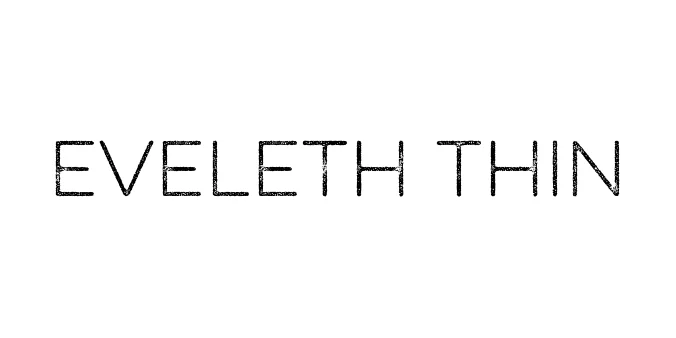
Eveleth Thin
Designed by Ryan Martinson (Yellow Design Studio)
| Category | Display / Letterpress Sans Serif |
Eveleth Thin is a refined component of the high-resolution letterpress family designed by Yellow Design Studio. This typeface is celebrated for its incredible level of detail and authentic texture, which avoids the repetitive patterns often found in digital distressed fonts. The Thin weight provides a subtle, sophisticated take on the rugged letterpress aesthetic, offering a lighter touch that maintains the vintage soul of the original design while adding a layer of modern elegance.
The development of Eveleth focused on capturing the realistic imperfections of manual ink-pressing. Each character features unique distressing that remains sharp even when used in large-scale formats. By balancing a clean sans-serif structure with intricate weathering, Eveleth Thin serves as a versatile tool for designers looking to evoke nostalgia without sacrificing legibility or professional polish.
Eveleth Thin Best Uses
Ideal for creating authentic, artisan-style brand marks.
Provides a hand-crafted feel to product labels and boxes.
Great for stylized headlines that require a tactile, weathered look.
High-resolution details make it excellent for hero banners and social media assets.